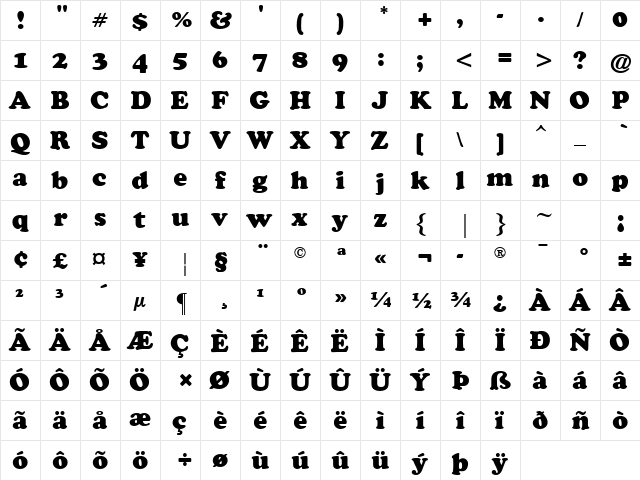
Poverty 1 Regular
Design Context for Poverty 1 Typeface
Poverty 1 offers clean, dependable letterforms without strong stylistic allegiance, making it a practical choice for designers who need flexibility.